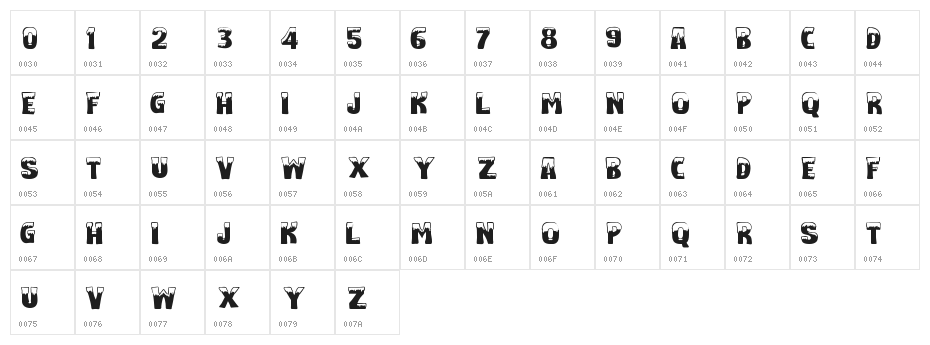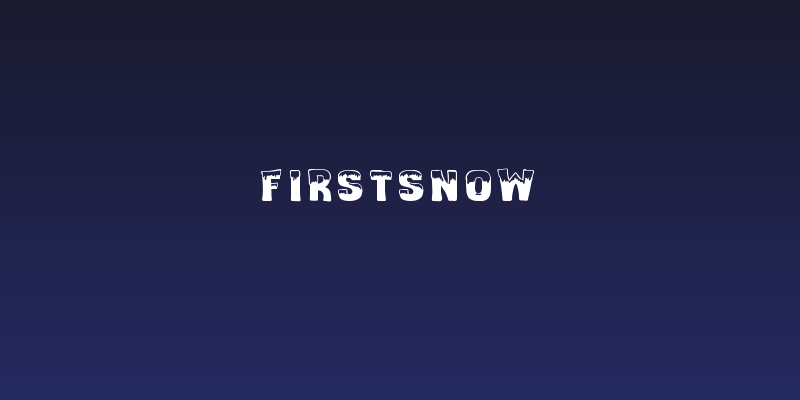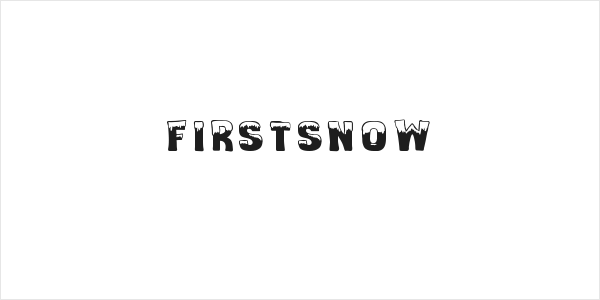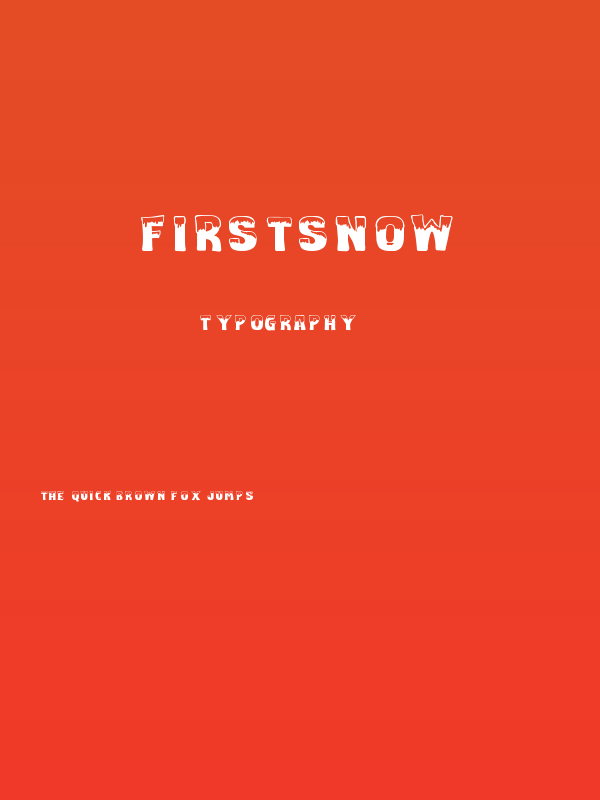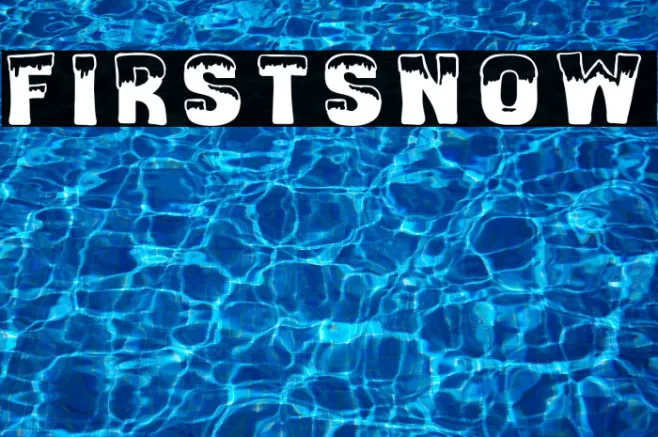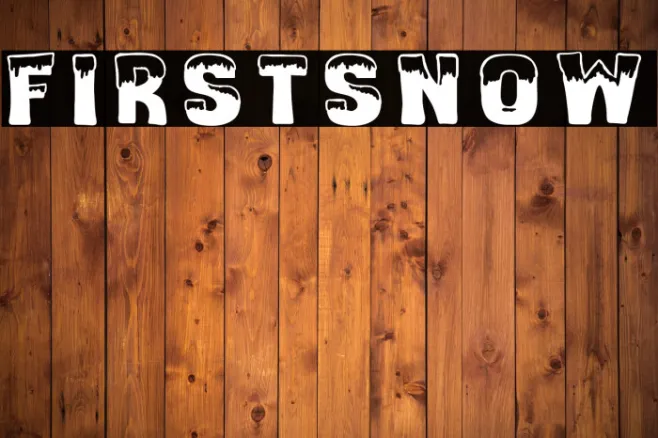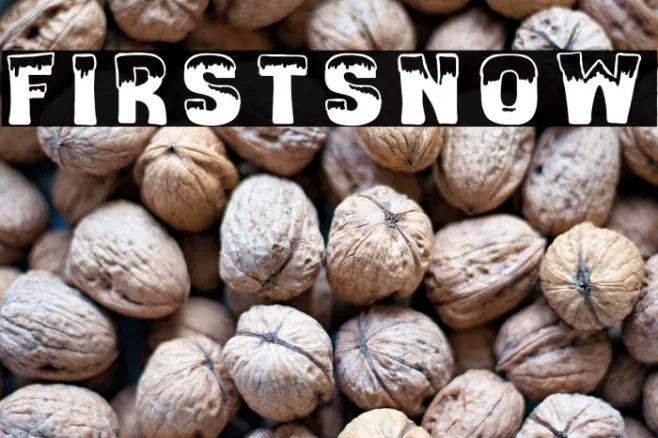
firstsnow Font
firstsnow Description
This playful and decorative font features a unique design where each character is adorned with a snow-like texture on top, giving it a whimsical and winter-themed appearance. The letters are bold and have a slightly rounded shape, which adds to their friendly and approachable look. The font maintains a consistent thickness throughout, with minimal contrast in stroke width, making it easy to read while still being visually interesting. The numbers and special characters follow the same design theme, ensuring a cohesive look across all elements. This font is perfect for projects that aim to evoke a sense of fun, playfulness, and seasonal cheer.
| Proposed Projects | Ideal for holiday cards, winter festival posters, children's book covers, and festive event invitations. |